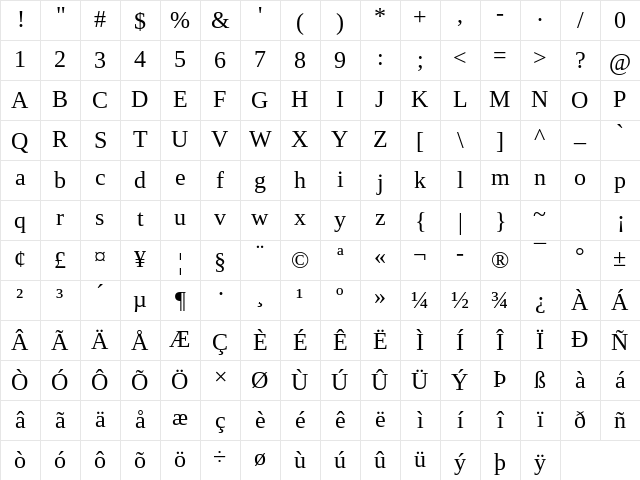
Tinos Nerd Font Book
Foundry: Monotype Imaging Inc.
Designer: Steve Matteson
Design Context for Tinos Nerd Font
Tinos Nerd Font is a composed and adaptable typeface that performs quietly and consistently across a wide range of design contexts.
Pro Tip: Use Tinos Nerd Font in both headline and body roles to test its range before committing to a single application.